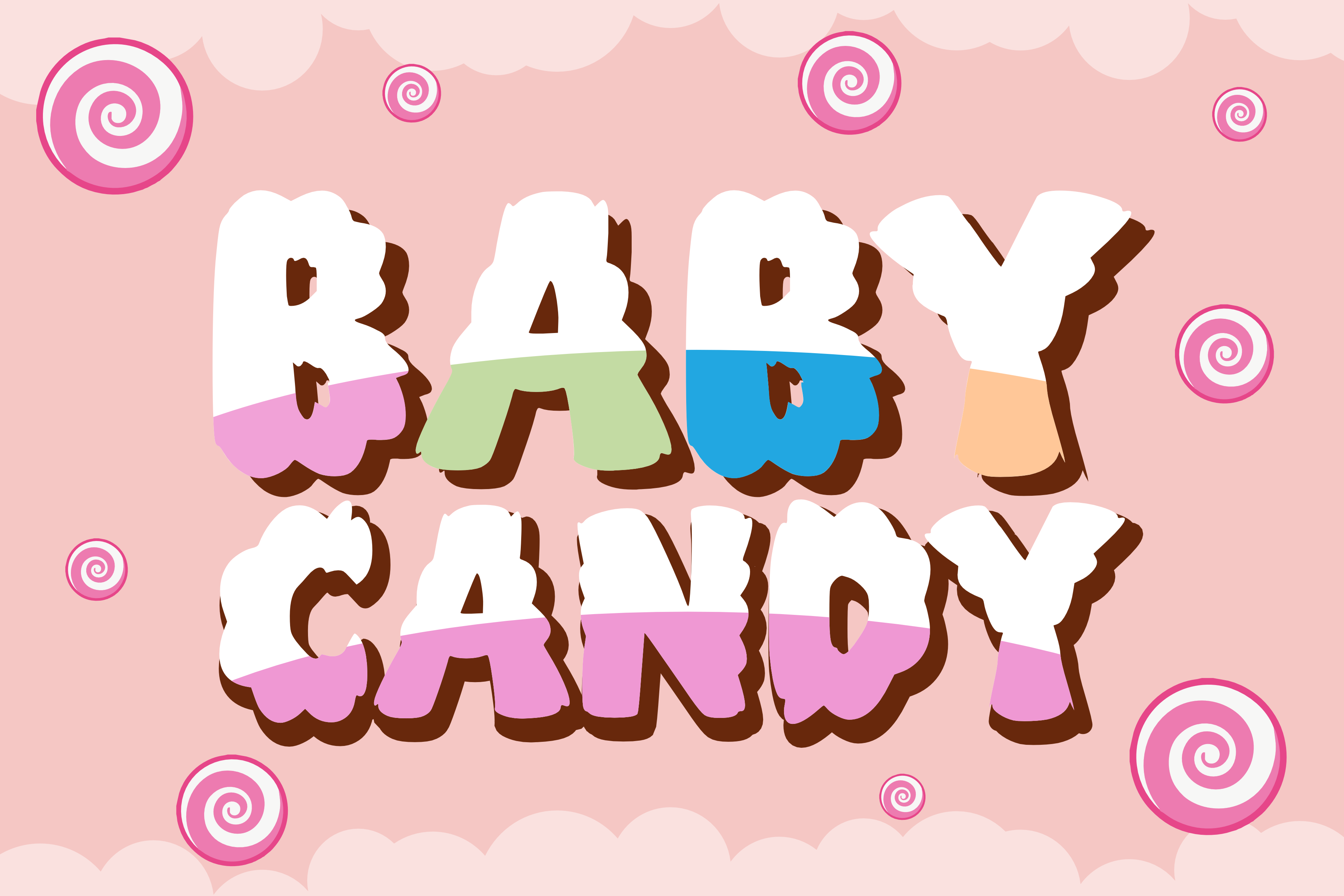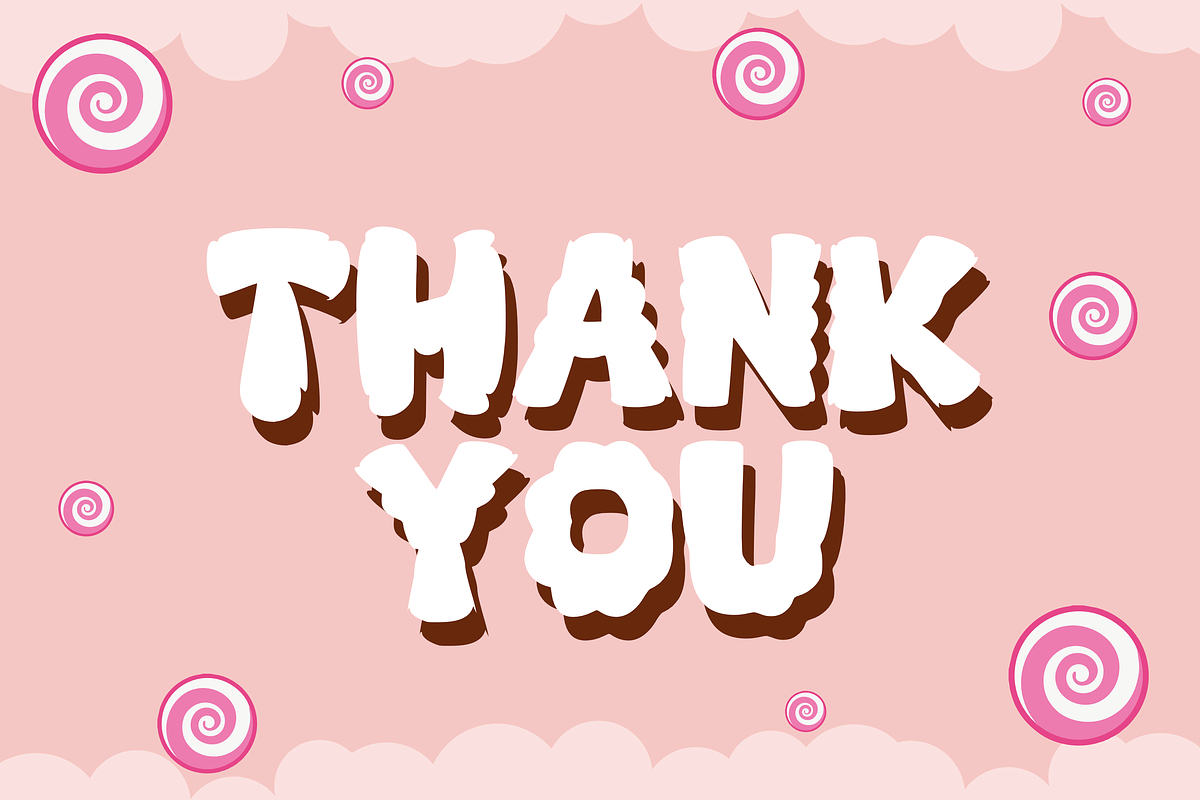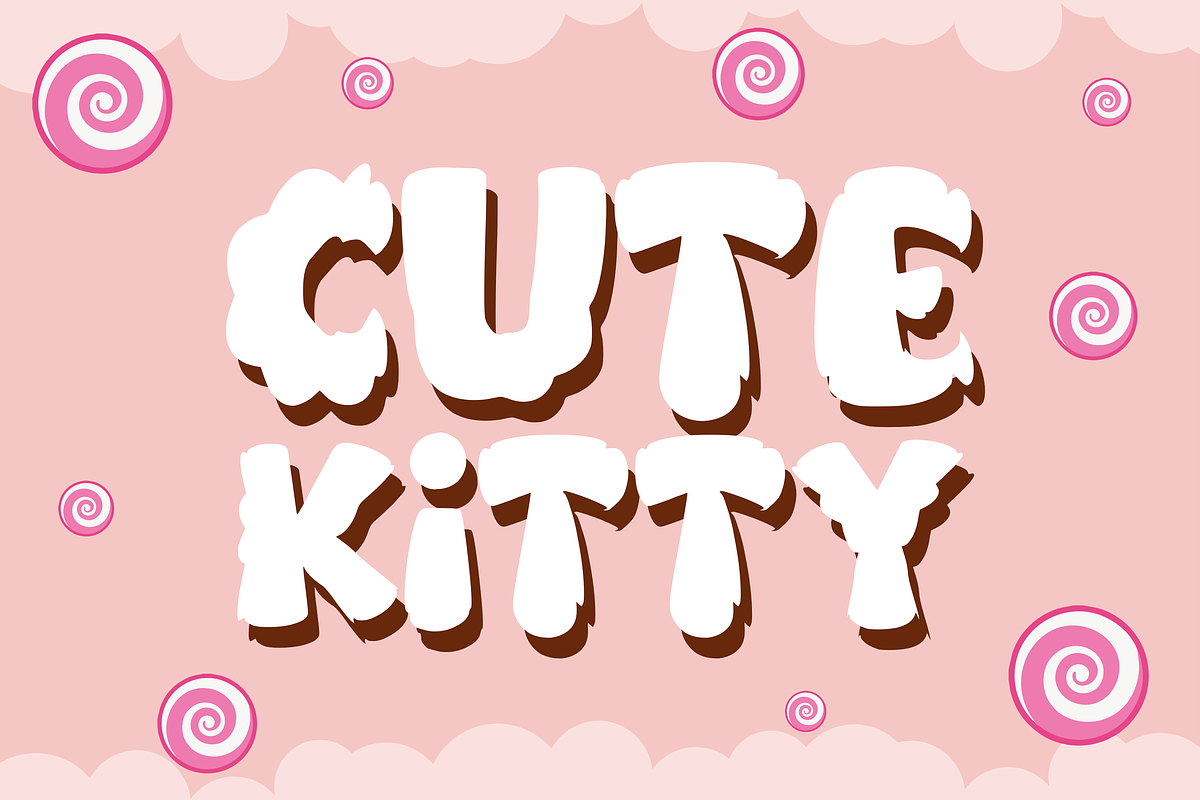
Baby Candy - Baby Font Types
Introducing Baby Candy – a font that is so sweet and charming. Its flexible style brings an adorable aesthetic to a variety of children’s products. Whether you’re creating fun children’s birthday decorations, designing unique artwork, creating engaging social media content, or adding a charming flair to your advertising campaigns, Baby Candy has the power to bring your creative vision to life